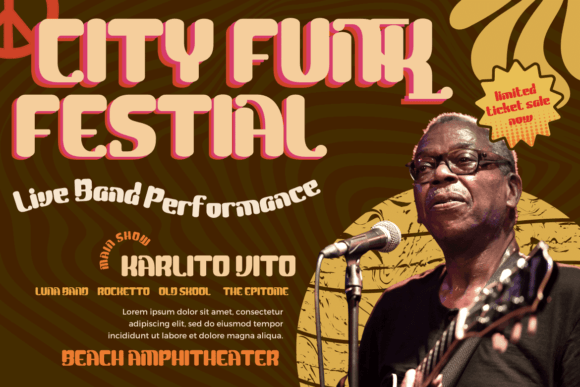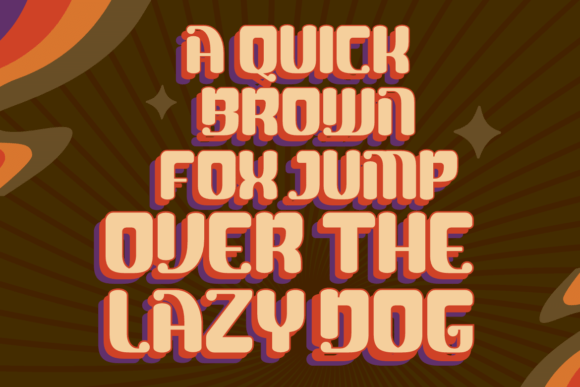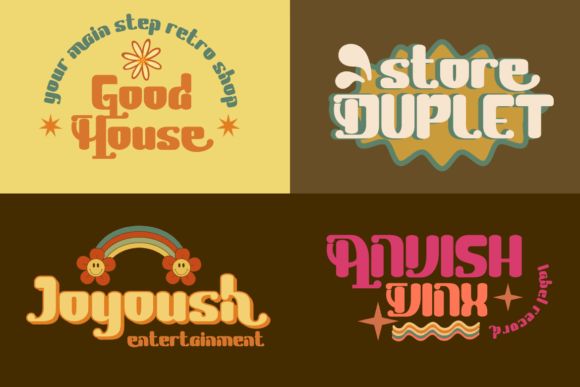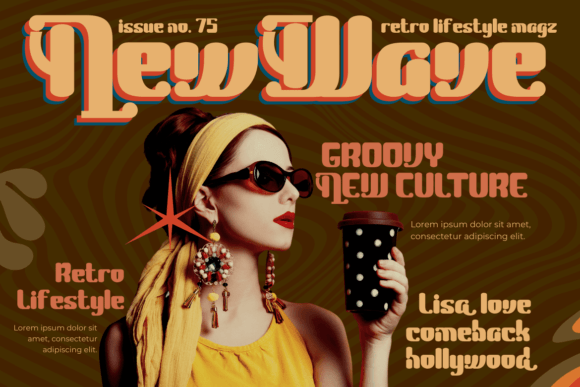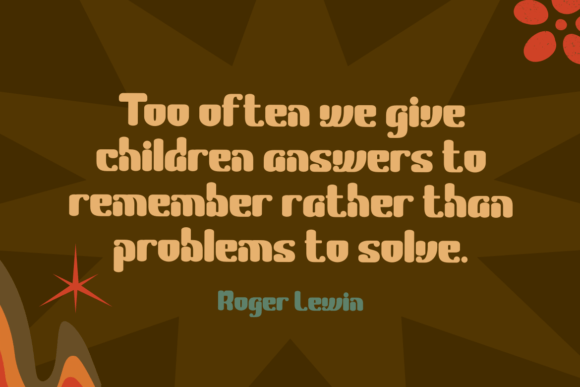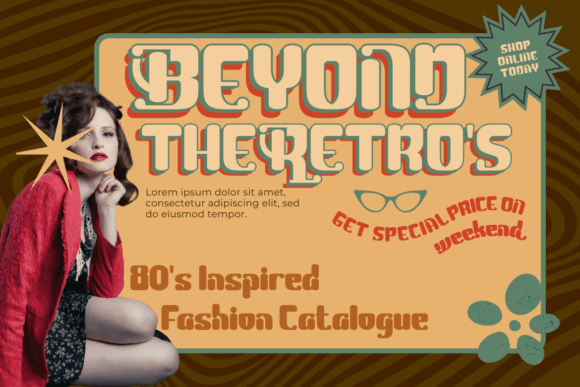
The Blagak Font: Elevate Your Designs with Elegance and Creativity
Have you ever been in the middle of a design project, and suddenly, you’re stuck on finding the perfect font? I recall a recent experience where I was working on a client’s branding project, and I just couldn’t find a font that captured the essence of their vintage-inspired aesthetic. That’s when I stumbled upon the Blagak font, and it completely transformed my design. In this article, we’ll dive into the world of Blagak, exploring its features, and how to make the most of this elegant font.
What is Blagak Font?
Blagak is a beautifully crafted font that adds a touch of vintage charm to any design project. Its elegant and refined appearance makes it perfect for creative hobbyists, designers, and crafters looking to spice up their work. With a wide variety of characters and alternatives, Blagak offers endless possibilities for customization.
- 💫 Elegant and refined appearance, perfect for vintage-inspired designs
- ✅ Wide variety of characters and alternatives for customization
- 🔍 PUA encoded, making it easy to access all glyphs and ligatures
- 📚 Perfect for use in titles, headings, and body text
- ⚠️ Limited use in very small font sizes, as some details may get lost
- 🤔 May not be the best fit for very modern or minimalist designs
The Story Behind Blagak: Designer Inspiration
The Blagak font was inspired by the works of vintage typeface designers, who sought to create elegant and refined fonts that would evoke a sense of sophistication and luxury. The creator of Blagak aimed to capture the essence of these classic designs while adding a modern twist, making it perfect for use in a wide range of creative projects.
A: PUA (Private Use Area) encoding allows font users to access a wide range of glyphs and ligatures, making it easier to customize and use the font in various designs.
Q: Is Blagak suitable for use in body text?
A: Yes, Blagak can be used in body text, but it’s recommended to use it in larger font sizes to take full advantage of its elegant features.